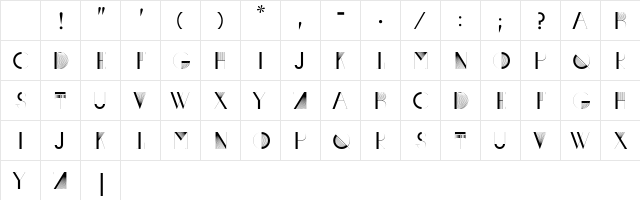
Complete FanarcStylusDisplay Regular glyph index. Displaying only characters natively supported by FanarcStylusDisplay Regular font.
FanarcStylusDisplay is built around its visual character rather than neutral utility - its distinctive forms are designed to make an impression at display sizes.
Font Pairing: Pair with a clean neutral sans-serif for body copy to let FanarcStylusDisplay's character lead without overwhelming the composition.
Pro Tip: Use FanarcStylusDisplay exclusively at display sizes - it was designed to be seen, not read at length. Let a neutral companion handle body copy.